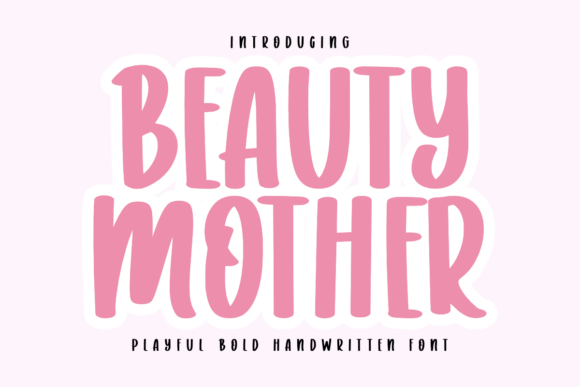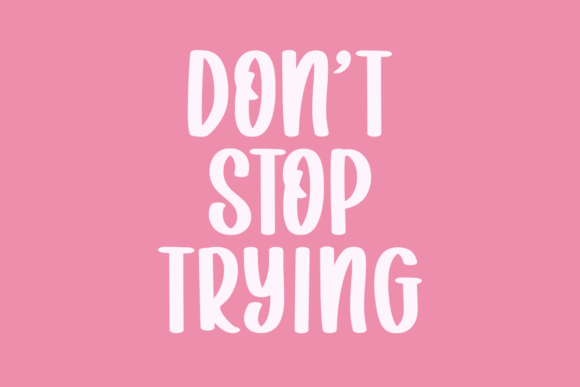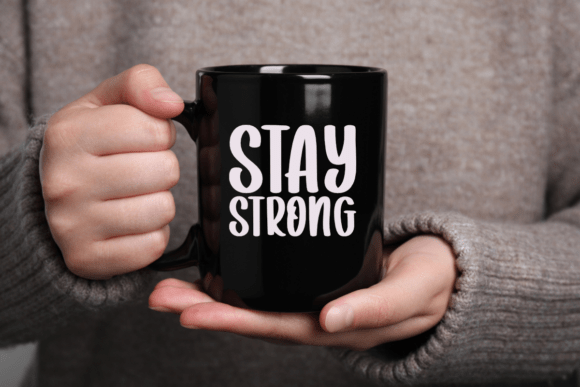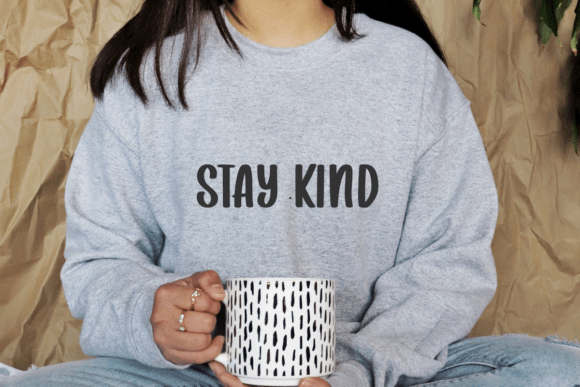
Beauty Mother Font
About the Beauty Mother Font
Get ready to be inspired by Beauty Mother Font, a fresh and dynamic typeface for modern creators. Beauty Mother is a playful, bold handwritten font that radiates love, joy, and positivity. With its tall, rounded letters and soft curves, this font is perfect for Mother’s Day designs, kids’ projects, greeting cards, branding, and social media content. Sweet, stylish, and full of personality, Beauty Mother adds a heartwarming charm to every message.
Beauty Mother Font Example